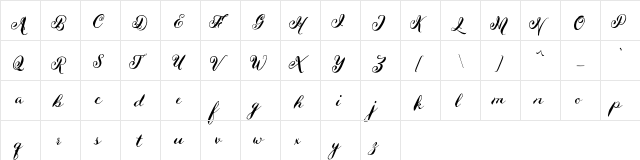
Hefalo script Regular
| Foundry | Joel Maker |
| Designer | Joel Maker / Wak Joel |
Design Context for Hefalo script Typeface
Hefalo script flows with the natural rhythm of handwritten lettering, making it ideal for designs that call for warmth and personal expression.
Font Pairing: Combine Hefalo script with a simple geometric sans for maximum contrast — the tension between flowing curves and clean structure is a classic typographic pairing.
Pro Tip: Pair Hefalo script with a clean sans-serif for supporting text. The contrast between fluid script and geometric structure creates an elegant typographic hierarchy.